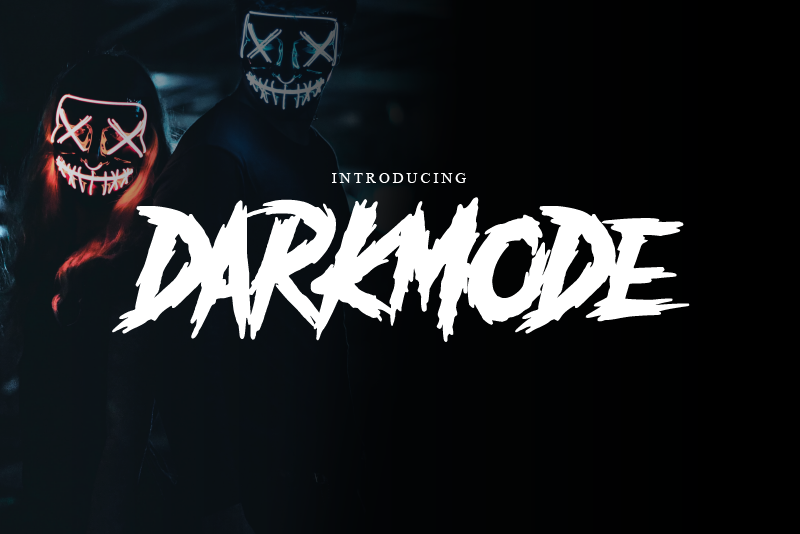
Font name: | Darkmode |
Author: | WAP Type |
Darkmode Display Font Darkmode was inspired from gothic, scary, protest, and horror nuance. Combine with hand drawn brush who make the typeface looks very instant and messy. Uses for film, quotes, cover book, title, cover album, logo, clothing, invitation, event, labels, poster, etc. Note of the author This demo font is for PERSONAL USE ONLY! If you want to use commercial interests,you can buy the license via the link below. https://fontbundles.net/wapstd/1793593-darkmode-horror-gothic-typeface sdDarkmode Display Font Darkmode was inspired from gothic, scary, protest, and horror nuance. Combine with hand drawn brush who make the typeface looks very instant and messy. Uses for film, quotes, cover book, title, cover album, logo, clothing, invitation, event, labels, poster, etc. Note of the author This demo font is for PERSONAL USE ONLY! If you want to use commercial interests,you can buy the license via the link below. https://fontbundles.net/wapstd/1793593-darkmode-horror-gothic-typeface https://crmrkt.com/OlMQz8 If you have any questions, please contact us. wap.std@gmail.com More... |